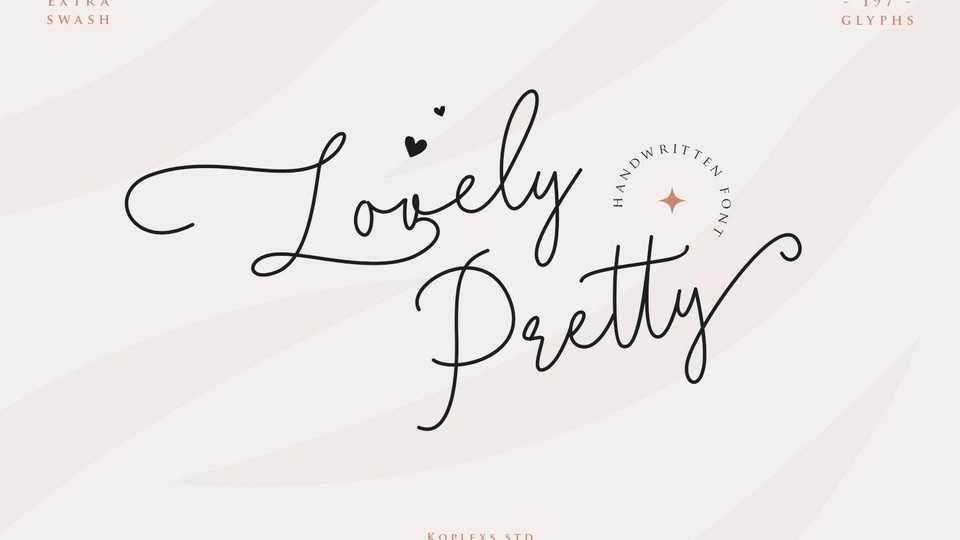
Download Lovely Pretty font, a simple and cute handwritten typeface with an airy flow. Lovely Pretty is perfect for notes, quotes, social media, cards any projects that need handwriting taste.
Designer: Koplexs Studio